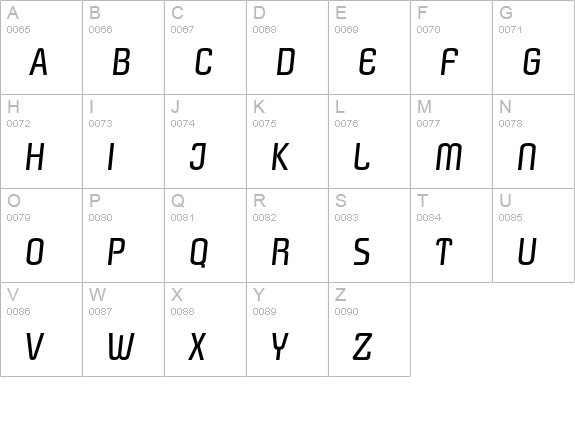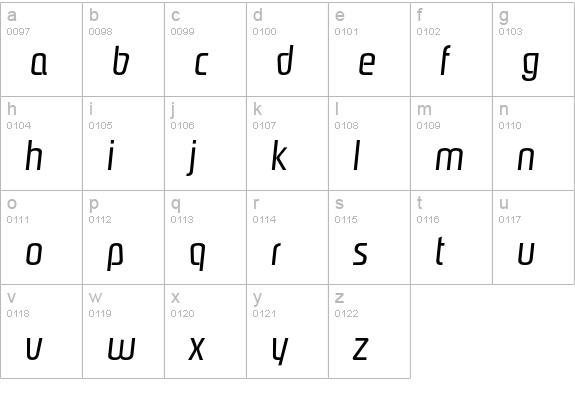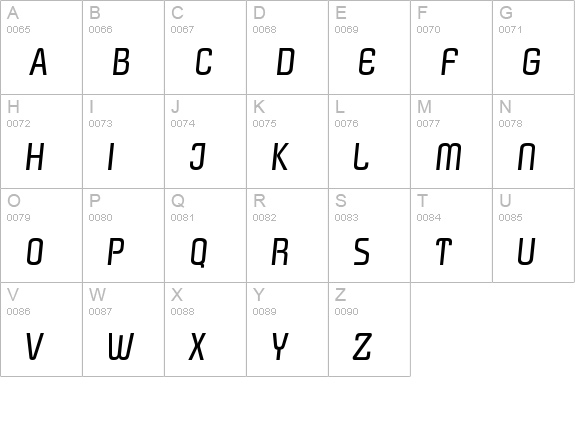
PasadenaEF-RegularItalic is a stunning and versatile font that exudes elegance and sophistication. With its sleek and slanted letterforms, this font effortlessly adds a touch of flair and style to any design project. Designed with attention to detail, PasadenaEF-RegularItalic is perfect for creating captivating headlines, logos, branding materials, and more. Its italicized nature gives it a dynamic and modern appeal, making it an excellent choice for fashion, beauty, and lifestyle-related designs. One of the standout features of PasadenaEF-RegularItalic is that it is available for free! That's right, this exceptional font can be downloaded at no cost from FontsMarket.com. Whether you are a professional designer or a hobbyist, this free font provides you with the opportunity to elevate your creative projects without breaking the bank. The versatility of PasadenaEF-RegularItalic knows no bounds. Its unique and eye-catching style can be used for both digital and print designs. From website headers to brochures, invitations to social media posts, this font effortlessly adapts to various mediums, ensuring that your message is delivered in a visually stunning manner. With its smooth lines and balanced spacing, PasadenaEF-RegularItalic ensures optimal legibility, even at smaller sizes. This is particularly beneficial for projects that require the inclusion of longer passages of text, such as magazine articles or book chapters. The font's ability to maintain readability while still maintaining its distinctive style sets it apart from other fonts in its category. So why wait? Enhance your design projects with the captivating PasadenaEF-RegularItalic font. Its elegant and modern aesthetic, combined with its availability as a free download at FontsMarket.com, makes it a must-have for any designer's toolkit. Download this font today and unlock a world of creative possibilities!